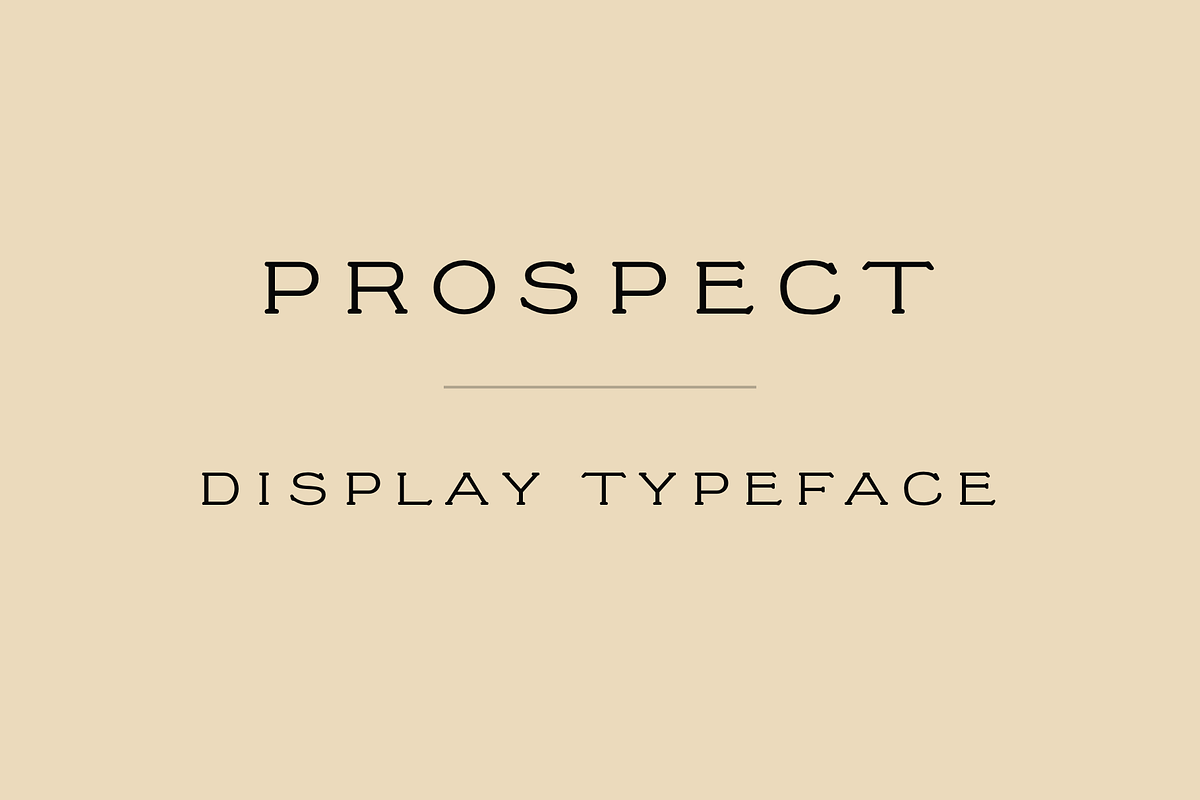
Prospect, Display font Free Download
Prospect Display Font Free Download is a bold and modern typeface designed to make a strong visual impact in headlines, logos, and branding materials. Please note: you must purchase this font for commercial use, but you can test it through a free download. With its sharp edges, geometric shapes, and confident letterforms, Prospect is perfect for editorial design, advertising, posters, product packaging, and digital interfaces.
This display font is built for attention—ideal for designers who want their message to be seen loud and clear. Whether you're crafting a tech-forward brand or an eye-catching print layout, Prospect Display Font Free Download offers structure, clarity, and a sleek contemporary vibe. It’s fully compatible with Adobe Illustrator, Photoshop, Canva, and more, making it easy to incorporate into any creative workflow. Download it today for personal use and elevate your designs with the bold precision of Prospect.